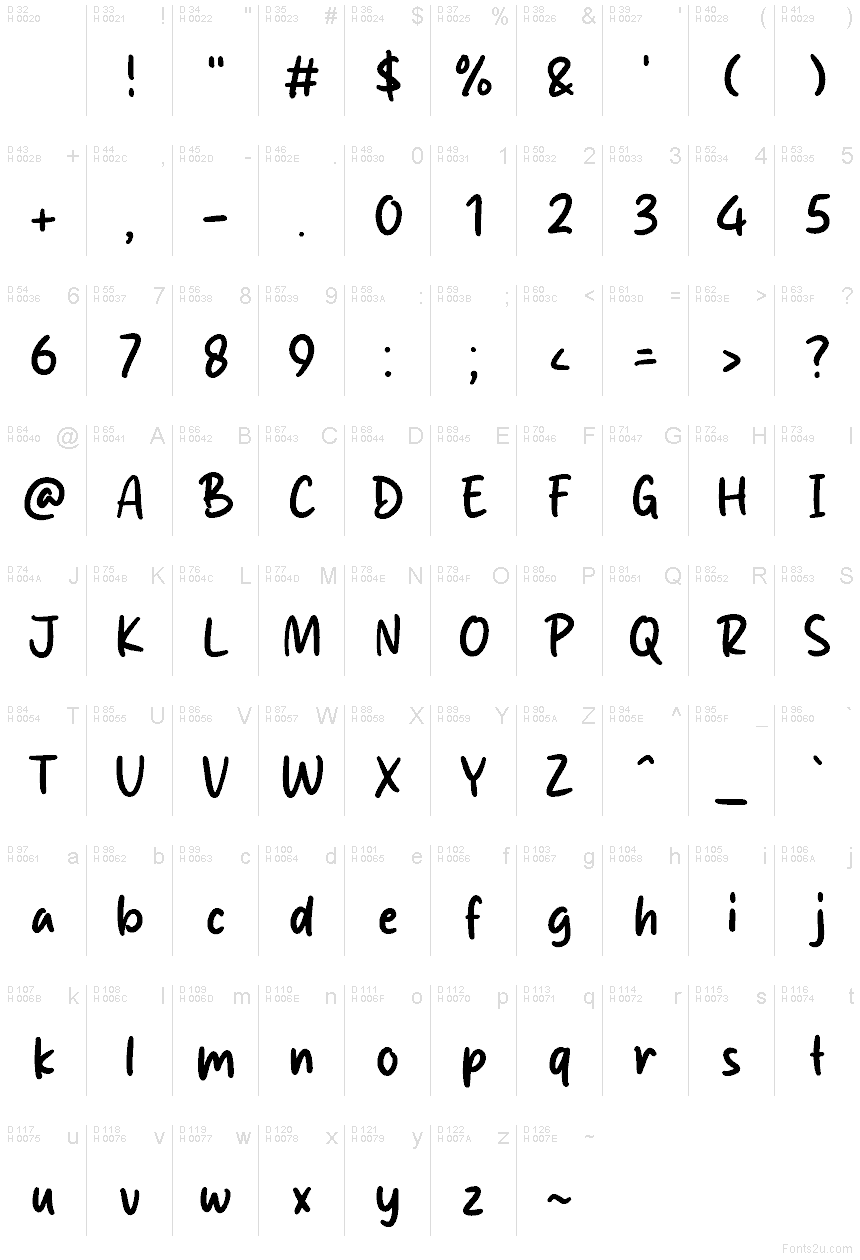
Boniqu Vanilla
Boniqu Vanilla font is a casual script typeface designed by MJType. Its modern flair and expressive character bring a natural flow and handwritten appearance to designs, making it stand out with its unique style.
This free handwritten font works unbelievably well for personal branding materials, creative advertising, product packaging, poster designs, invitation cards, logo presentations, apparel prints, books covers or elegant magazines. Enjoy this lovely font to create creatives for various platforms including social media posts that are trendy today!